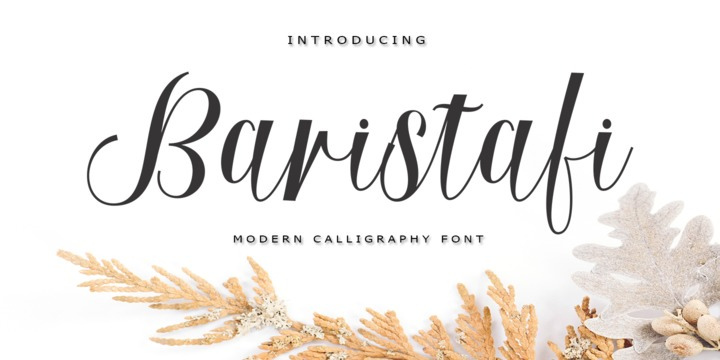
Baristafi Font
Baristafi Font is perfect for coffee shop branding, café signage, coffee packaging design, barista competition materials, specialty coffee marketing, coffeehouse menus, espresso bar logos, coffee roasting companies, artisan coffee labels, and coffee culture communications.
Baristafi Font is exciting because it captures the artisanal craftsmanship and passionate dedication of professional barista culture with its expertly crafted letterforms that embody the warmth and sophistication of specialty coffee experiences. Its distinctive character design combines café warmth with professional precision, making it perfect for brands that want to communicate coffee expertise, artisanal quality, and the authentic culture of specialty coffee craftsmanship.
The Baristafi Font family includes Light, Regular, Medium, Bold weights, corresponding Italic styles, Condensed versions, Coffee alternates, Barista flourishes, Café ornaments, and Espresso elements, providing designers with comprehensive tools for creating authentic coffee brands that resonate with specialty coffee enthusiasts and café culture communities.
Whether you're developing coffee shop identities, designing specialty coffee packaging, creating barista training materials, or producing coffee culture content, Baristafi Font provides the artisanal foundation needed for credible coffee communication. Its professional character makes it particularly effective for specialty coffee roasters, third-wave coffee shops, barista schools, and premium coffee equipment companies targeting serious coffee enthusiasts and industry professionals.
Perfect for coffee shop owners, specialty coffee marketers, barista trainers, and brand designers working with coffee industry clients, this font offers the authentic qualities essential for successful specialty coffee positioning. The typeface's versatile nature ensures consistent warmth across both coffee shop environments and premium coffee packaging design.